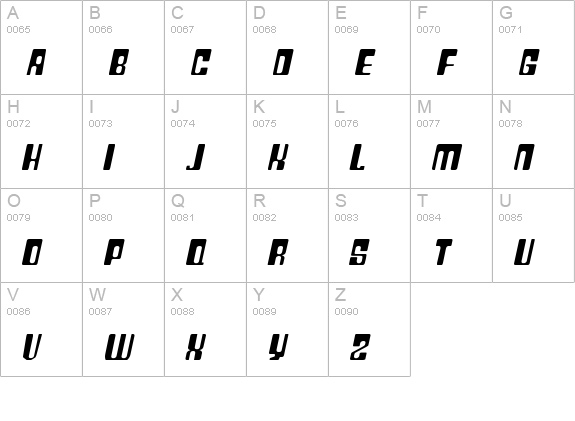
Plastic No.20 Font Details
Plastic No.20 font is a captivating typeface that effortlessly blends modernity with a touch of playfulness. Its sleek and clean lines, combined with its subtle curves, make it a versatile choice for a wide range of design projects. This font exudes a sense of boldness and confidence, making it perfect for attention-grabbing headlines, eye-catching logos, and stylish branding materials. Its unique geometric shapes create a visual impact that is both memorable and effortlessly chic. With its extensive character set, Plastic No.20 font offers a wide range of glyphs, allowing you to express your creativity and personalize your designs. Whether you need a trendy display font or a stylish text font, this typeface has got you covered. But what sets Plastic No.20 font apart from the rest is that it is not only visually stunning, but it is also free to download at FontsMarket.com. This means that you can enjoy the beauty and versatility of this font without any cost. Now, you can elevate your design projects without breaking the bank. So, if you are looking for a modern and versatile font that will make your designs stand out, look no further than Plastic No.20 font. Download it freely at FontsMarket.com and let your creativity flow.